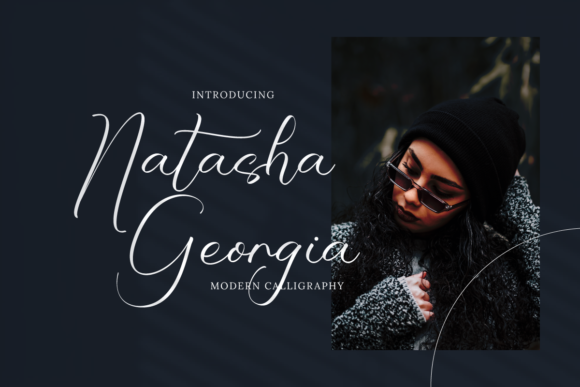
Are you ready to inject a touch of timeless elegance and modern flair into your digital creations? Look no further than our mesmerizing font, Natasha Georgia Font!
Crafted with the utmost care and precision, Natasha Georgia's delicate and airy strokes will transport you to a world of sophisticated aesthetics. Its graceful curves and balanced proportions create an enchanting harmony, promising to elevate your designs to new heights.
With Natasha Georgia Font, you'll have the power to transform your social media posts into captivating masterpieces. Its effortlessly stylish character will make your memes stand out from the crowd, ensuring your messages garner the attention they deserve.
But that's not all! Natasha Georgia's versatility extends far beyond the realm of humorous graphics. Its timeless charm and elegant appeal make it the perfect choice for a wide range of design projects. From personal invitations to professional presentations, Natasha Georgia will lend an air of sophistication and understated beauty to every endeavor.
Whether you're a seasoned designer or just starting your creative journey, Natasha Georgia Font is the essential tool you need to unlock your design potential. Its endless possibilities will spark your imagination and empower you to create designs that leave a lasting impression.
So why settle for ordinary when you can embrace the extraordinary? Download Natasha Georgia Font today and experience the transformative power of truly exceptional typography. Let its delicate strokes weave their magic into your digital creations, leaving an unforgettable mark on your audience.